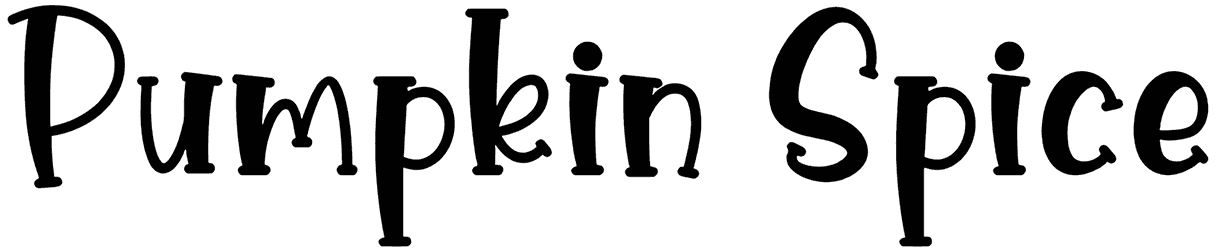
Pumpkin Spice Font
There’s no better way to express your hunted ideas than Pumpkin Spice. This handwritten font helps you to express your creative ideas outside the box in the best possible way and create a sense of horror in your projects without using common elements.
So if you are doing a design on a t-shirt, packaging, or poster for children and feel that you should get as close as possible to their world, turn on the project with this Halloween font.